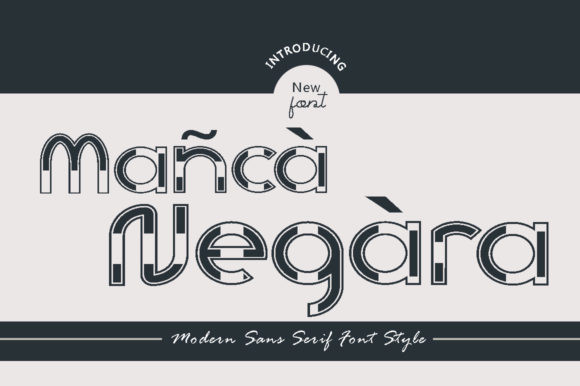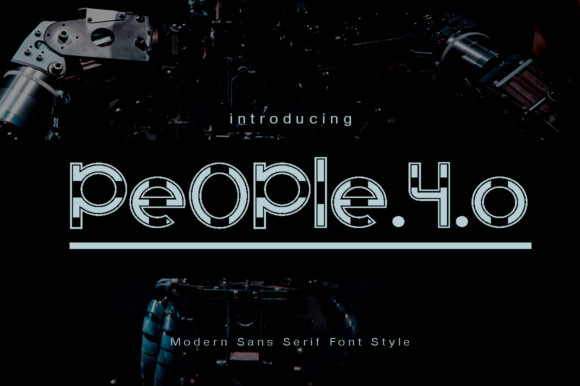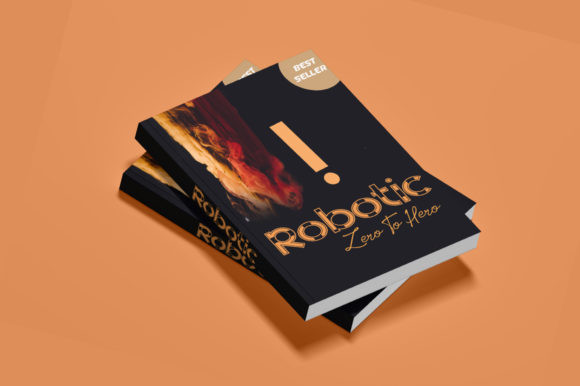
Manca Negara Font
Manca Negara is a minimal and neat display font. It can easily be matched to an incredibly large set of projects, so add it to your creative ideas and notice how it makes them stand out!